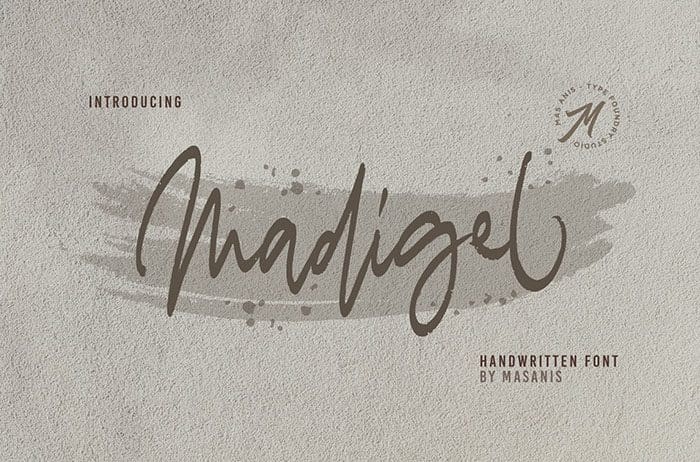
Free Madigel Script Font
Madigel Script Font
Free Madigel is a sweet and cool script font with a casual feel. Use it to add a personal charm to any design project! Designed this font by Mas Anis. You can also search more freeĀ Script Fonts.